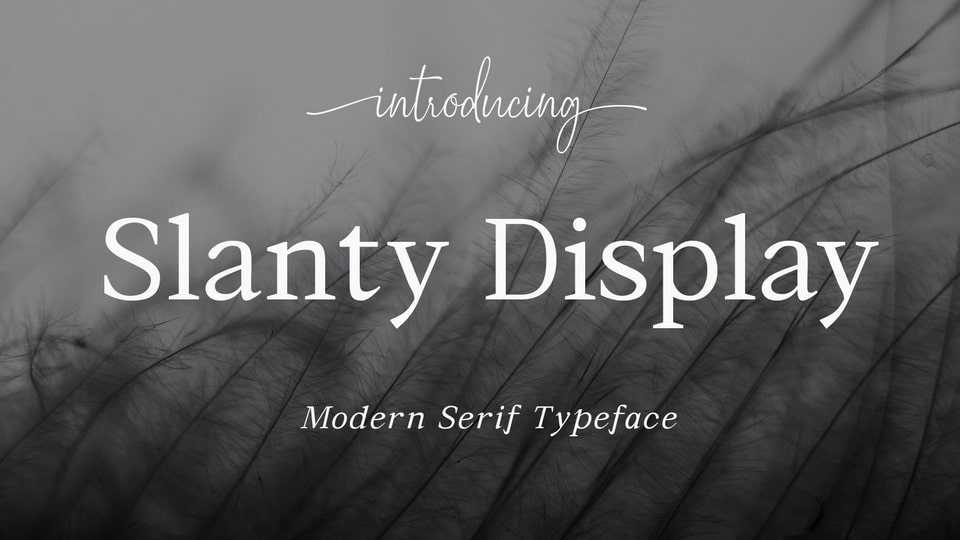
Download Slanty Display font, an exquisite display modern serif typeface, inspired by classic roman arts and vintage cars aesthetics.
Designer: Mytype Studio